Canva can be used for image editing, logo creation, creating graphics and text for social media, and much more. Canva provides texts for people who want to do calligraphy. Calligraphy is the art of decorative handwriting, producing text that is beautiful and pleasing to look at. Using the best Canva calligraphy fonts can take your artwork to another level. If you are doing calligraphy by itself or if you are doing it as a part of an artwork, using the best calligraphy fonts is key.
Best Canva Calligraphy Fonts
Choosing the right calligraphy font for the display medium and audience will make your work stand out. This article will show you the 10 best Canva calligraphy fonts for your project.
- Amsterdam
- Billion miracles
- Black bones
- Feeling passionate
- Flatlion
- Gellatio
- Holiday
- Howell
- Joshico
- Stoic
1] Amsterdam
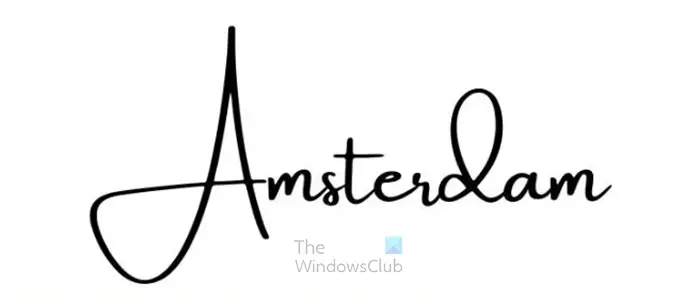
The Amsterdam font is a beautiful cursive font. It mimics cursive handwriting very well and would look great on items such as wedding invitations, birthday cards, etc.
2] Billion miracles
The Billion Miracles font is also cursive, it looks very stylish and neat. This font would look very nice on projects that you want to have a handwritten feel.
3] Black bones
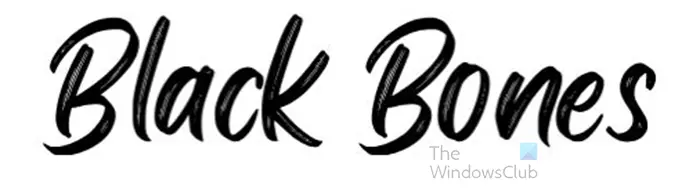
The Black Bones font is cursive but with a wider stroke like a brush.
4] Feeling passionate
The Feeling Passionate font is a cursive font that has the characteristics of a brush stroke or a large-point pen. This font can be used for a wide range of projects such as logos, branding materials, etc.
5] Flatlion
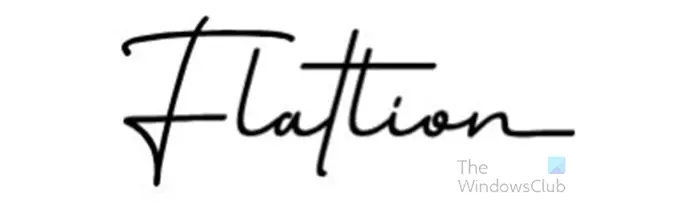
The Flatlion font is a neat well-written font that would be good for logos or branding.
6] Gellatio
The Gellatio font gives the look and feel of handwriting using a pen. This font would be great in cases where you want to achieve the look and feel of handwriting.
7] Holiday
The Holiday font has a simple yet eye-catching appeal. It can be used to create logos and other branding for businesses. If you look closely at the H, you will see that a well-known brand uses it.
8] Howell
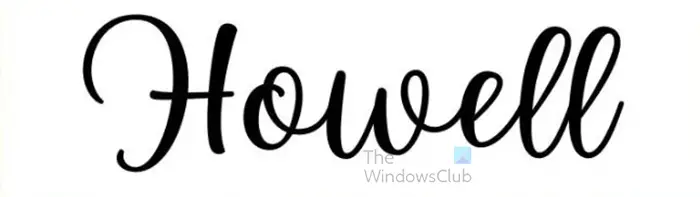
The Howell font has a pleasing look and would do well with logos and branding material.
9] Joshico
The Joshico font has a smooth effortless feel to it. it would easily fit in a brand that is geared towards entertainment and fun.
10] Stoic
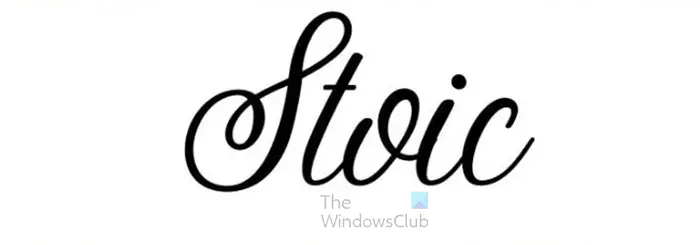
The Stoic font gives the feel of music and pleasantry with the S looking like a musical note.
The type of font that you choose for your project can make a difference in how attractive it looks. Different writing styles send different messages so choosing the correct one can make or break your design.
What are calligraphy fonts?
Calligraphy is the art of decorative handwriting. Calligraphy fonts give the appearance of being written by hand. They also have the look of being written with pens or brushes. Calligraphy fonts may even be written to look like they contain the splashes and drips and scratches of inks from a pen.
Can you place your font into Canva?